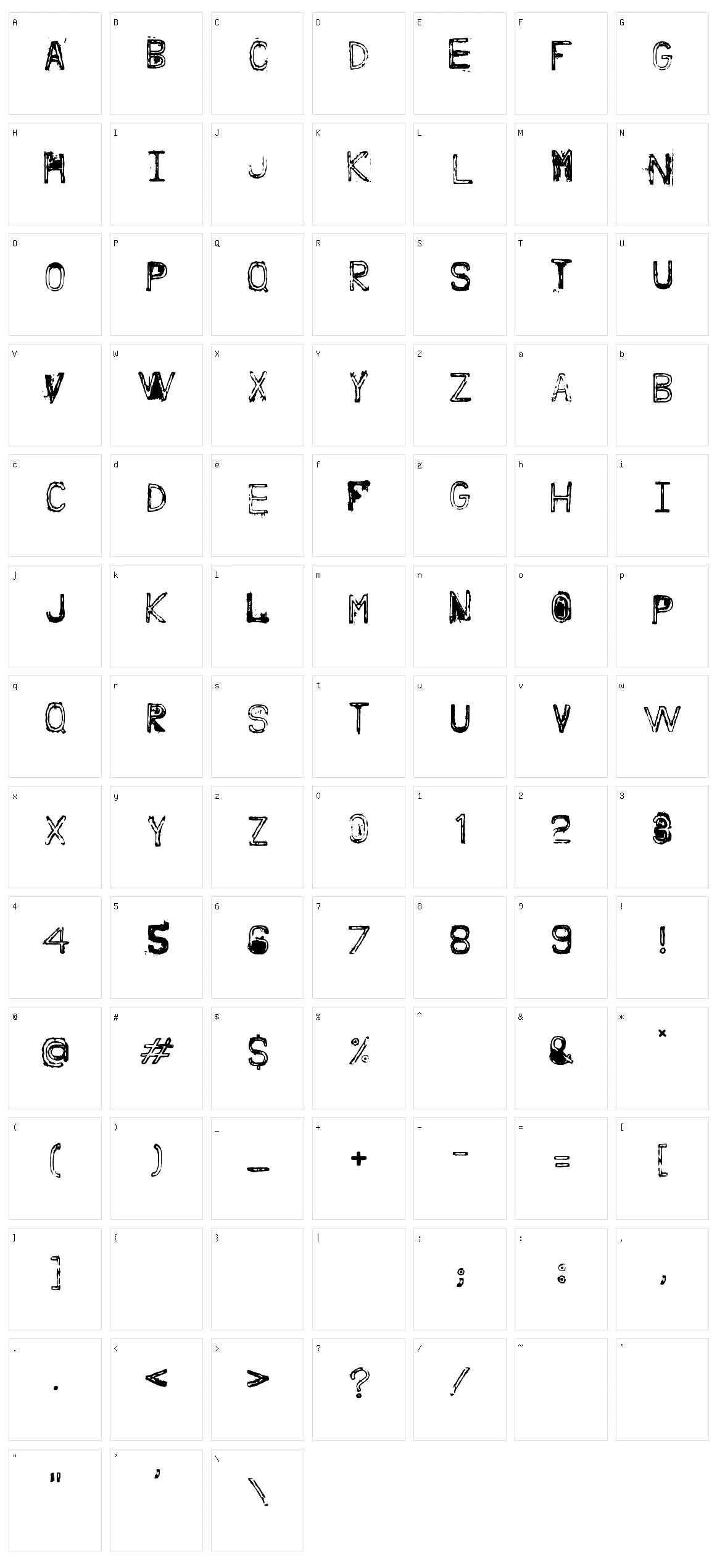
The free font Nine Feet Under is carefully designed by imagex, showcasing a thoughtful balance of creativity and usability and falls under the Destroy font style. When you download the ZIP file, it contains only 50.37 KB of font files, making it lightweight and quick to download. Please review the license details below to understand permitted usage and distribution rights. If license information is not available, we recommend using this font for personal projects only or contacting the author directly for commercial usage permissions.